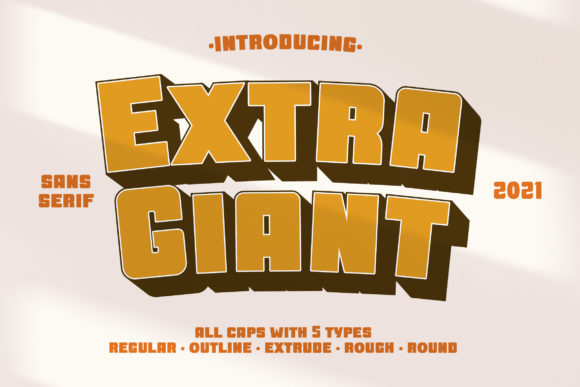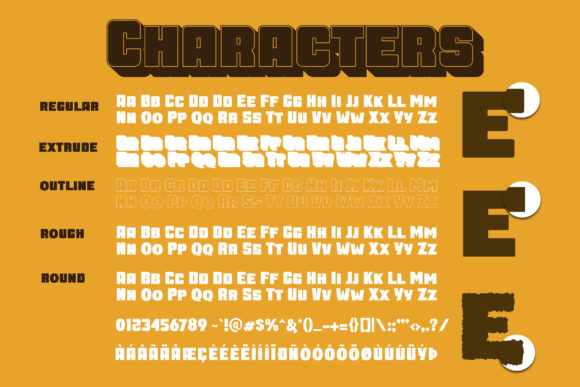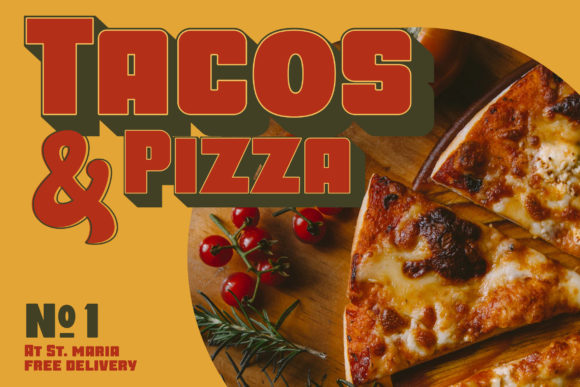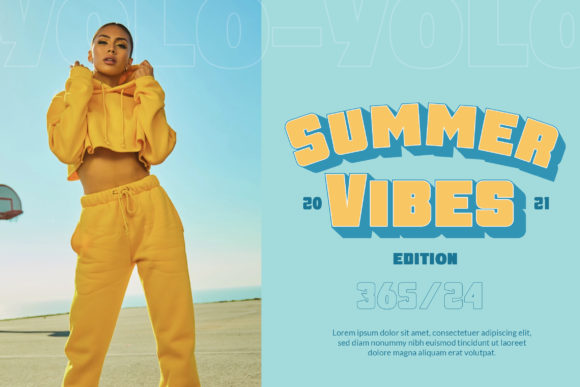
Extra Giant Font
About the Extra Giant Font
Get ready to be inspired by Extra Giant Font, a fresh and dynamic typeface for modern creators. Extra Giant is a cool, bold and thick lettered display font. Add this robotic looking font to your creations and they will instantly stand out.
Extra Giant excels as a headline font for posters, branding materials, and short impactful statements. Its bold, robotic aesthetic commands attention and works best in large sizes where its thick letterforms are clearly legible. Avoid using it for body text or UI elements; the weight and unusual letterforms would hinder readability in smaller sizes or continuous text.
The font’s core personality is bold and assertive, conveying a modern and technological feel. It would be ideal for brands focused on innovation, technology, or industrial design.
Pairing Extra Giant with a clean sans-serif like Helvetica Neue for supporting text creates a strong visual hierarchy. Alternatively, a subtle serif like Garamond could provide a sophisticated counterpoint, softening the robotic feel while maintaining readability.
Extra Giant Font Usage Examples
Extra Giant Font Example